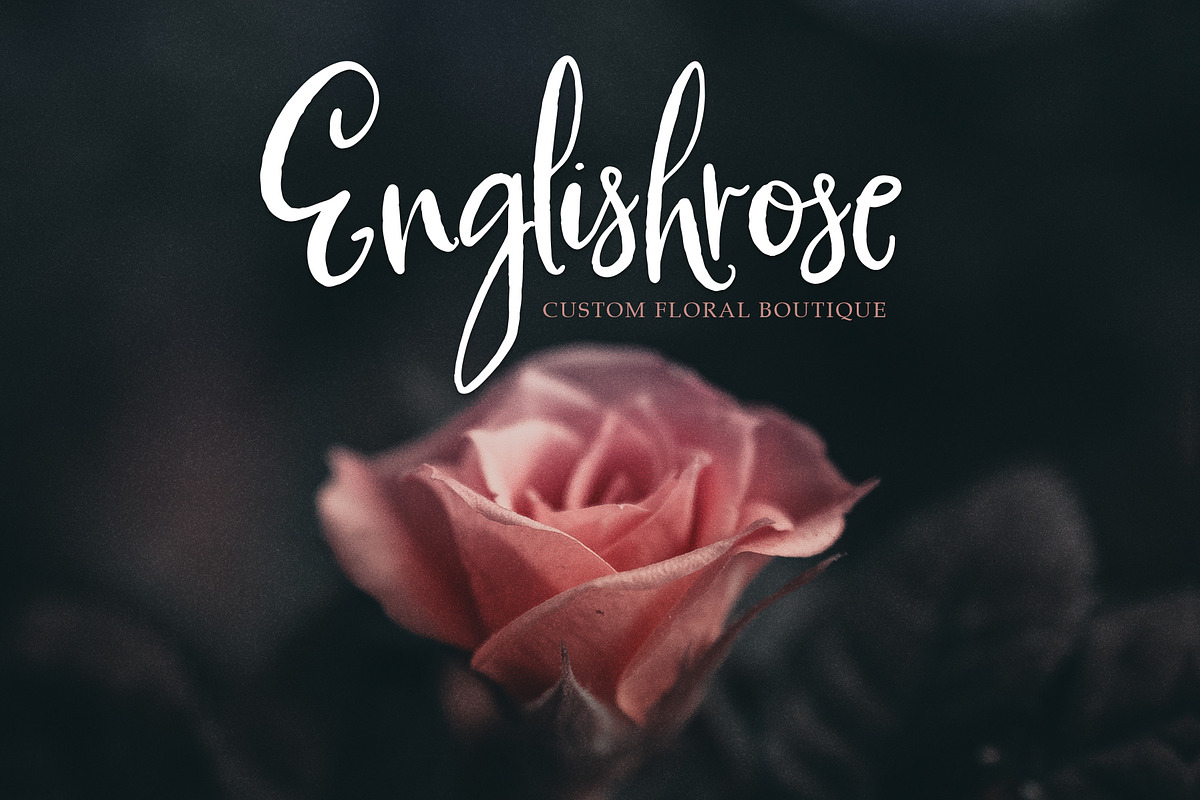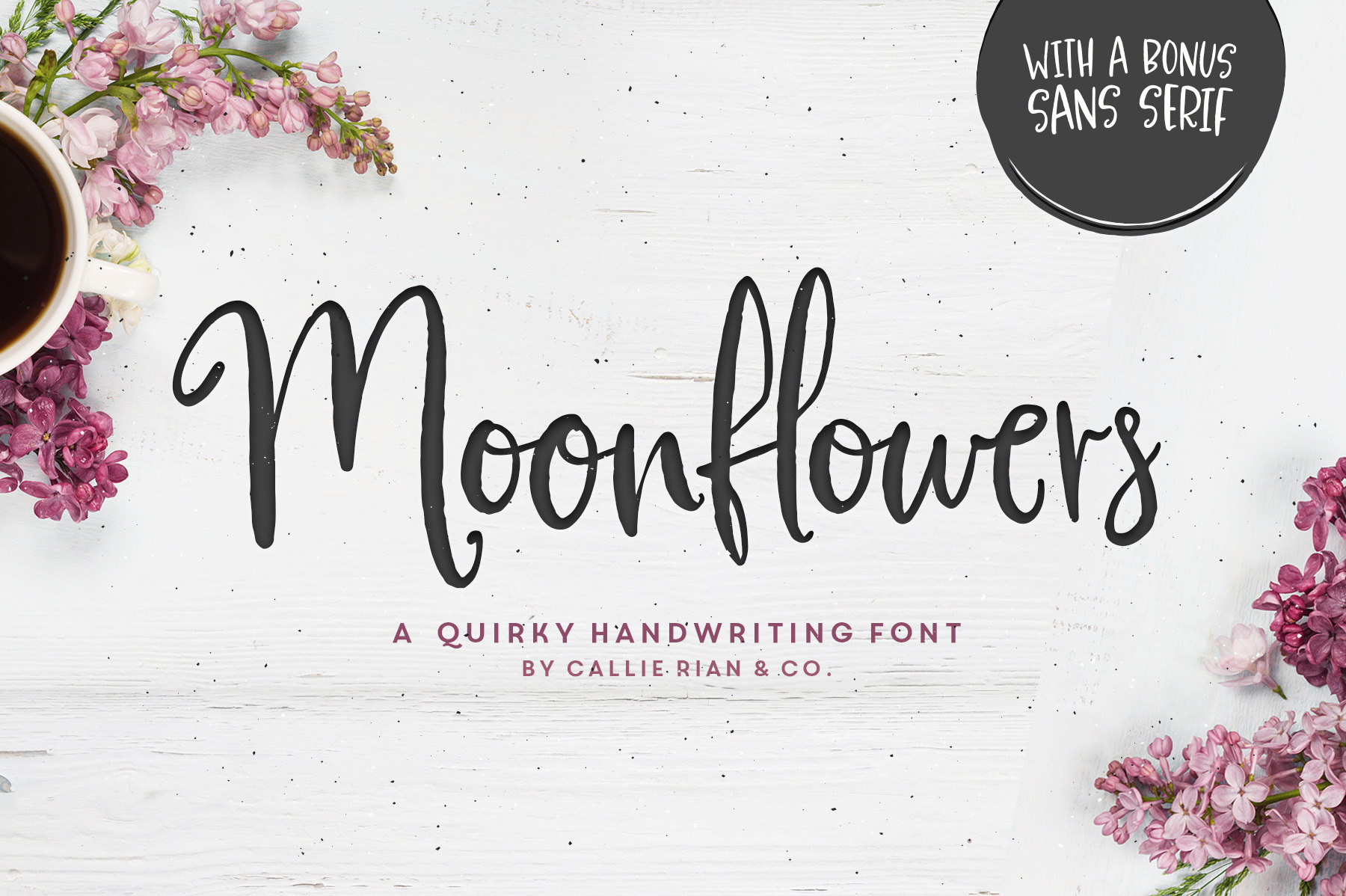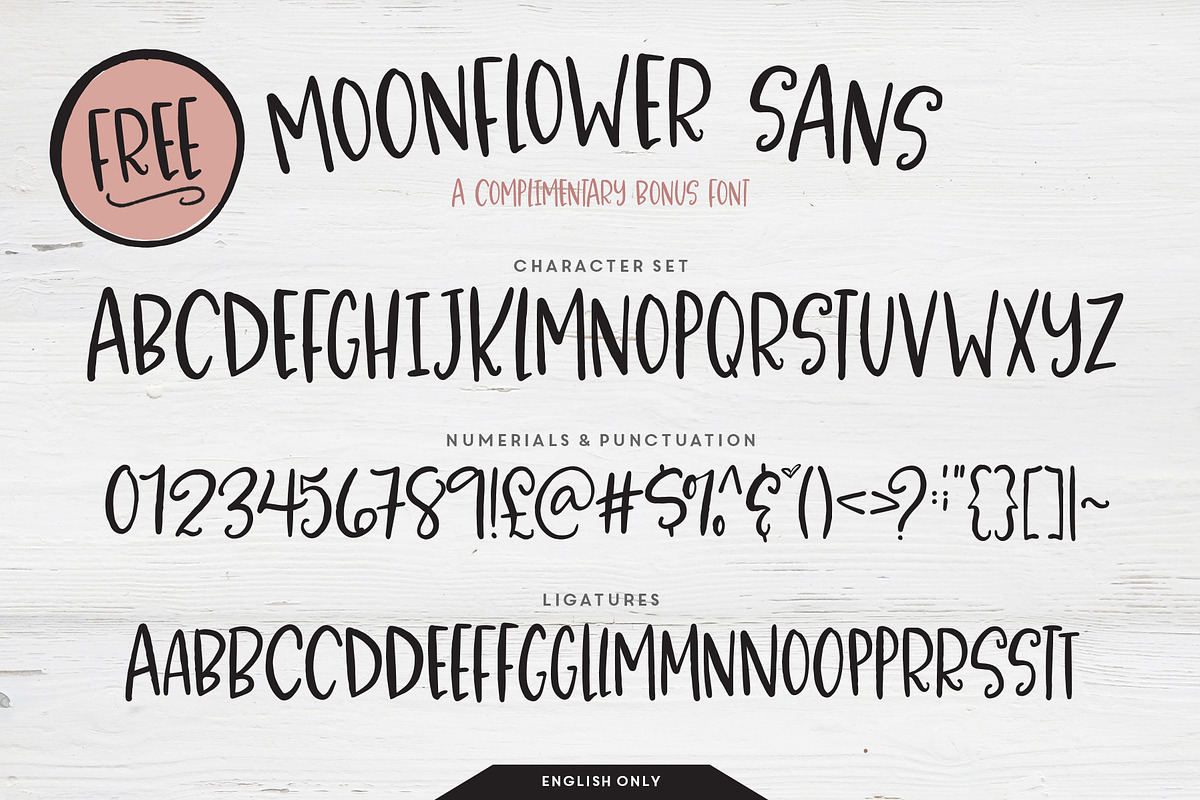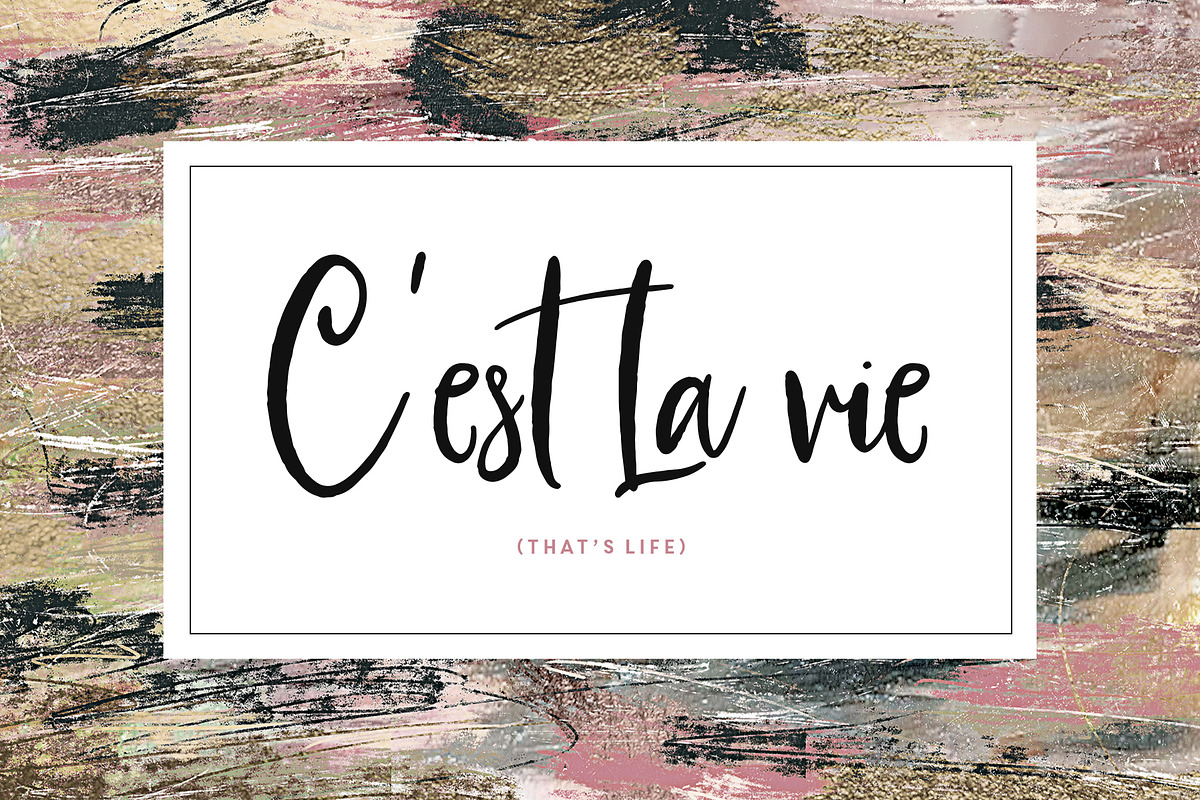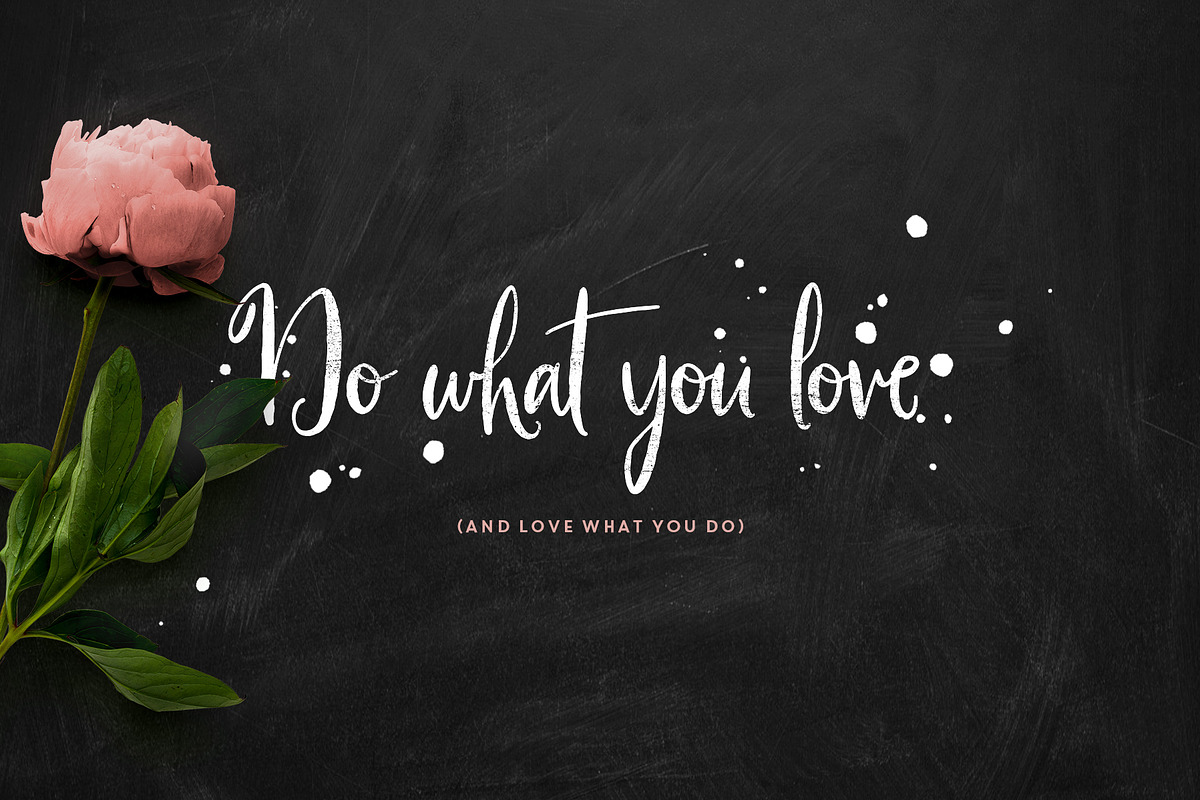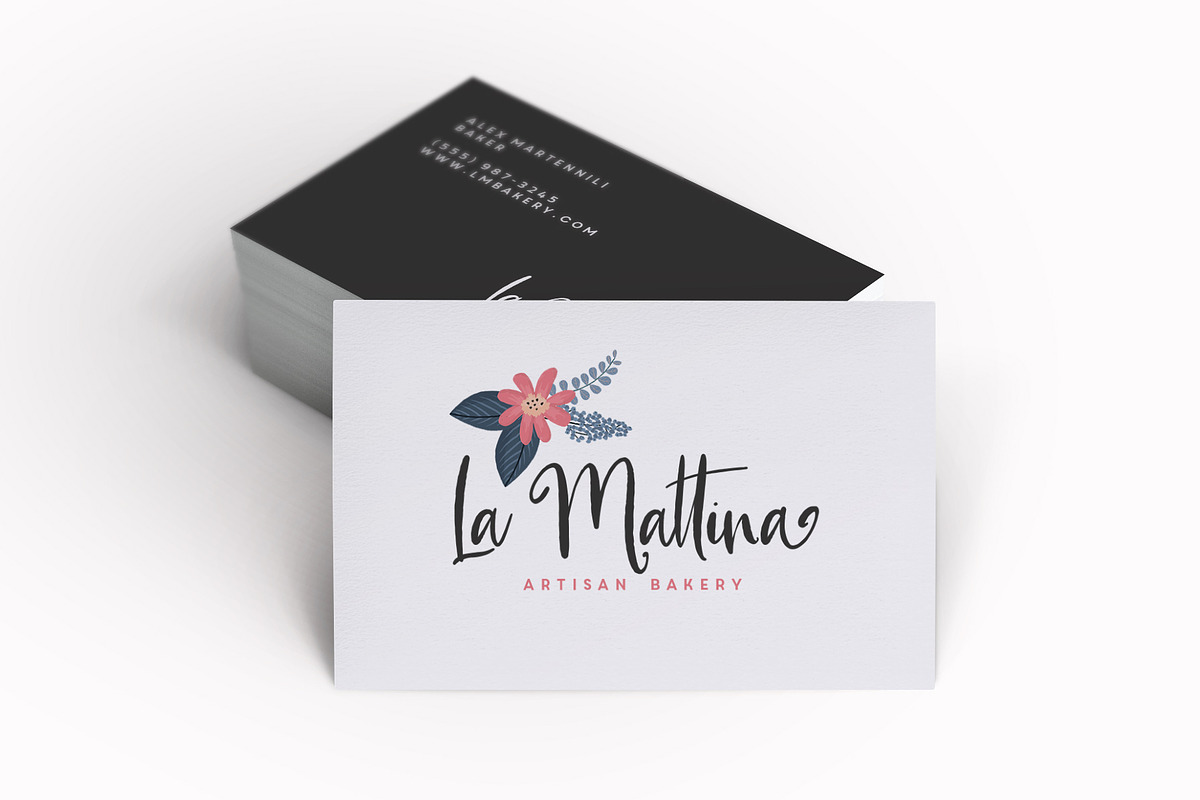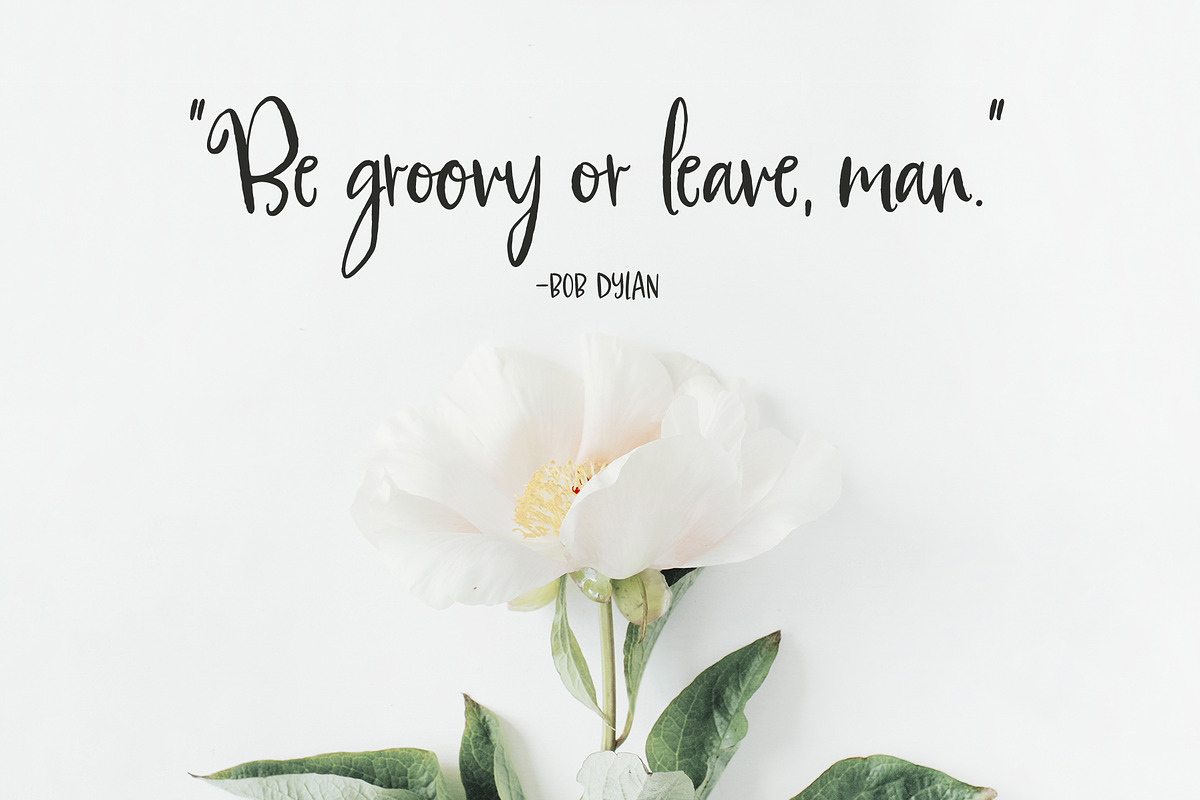
Moonflowers Font Family
Introducing Moonflowers! A signature handwriting font with an upright stroke and a dancing baseline. Use Moonflowers for branding, headlines, product packaging, email signatures, advertising campaigns, book covers and more!
- Moonflowers Script (OTF & TTF) - Contains ligatures and multilingual support.
- Moonflowers Script Italic (OTF & TTF) - Contains ligatures and multilingual support.
- Moonflowers Sans (OTF & TTF) - A fun, free BONUS sans serif to compliment your script set (English Only).